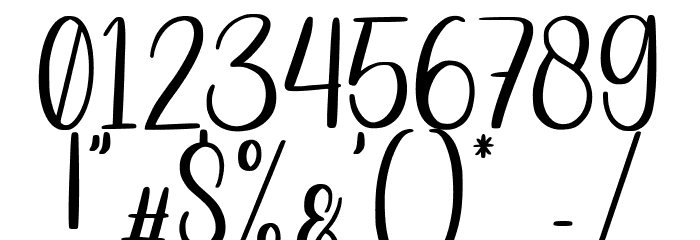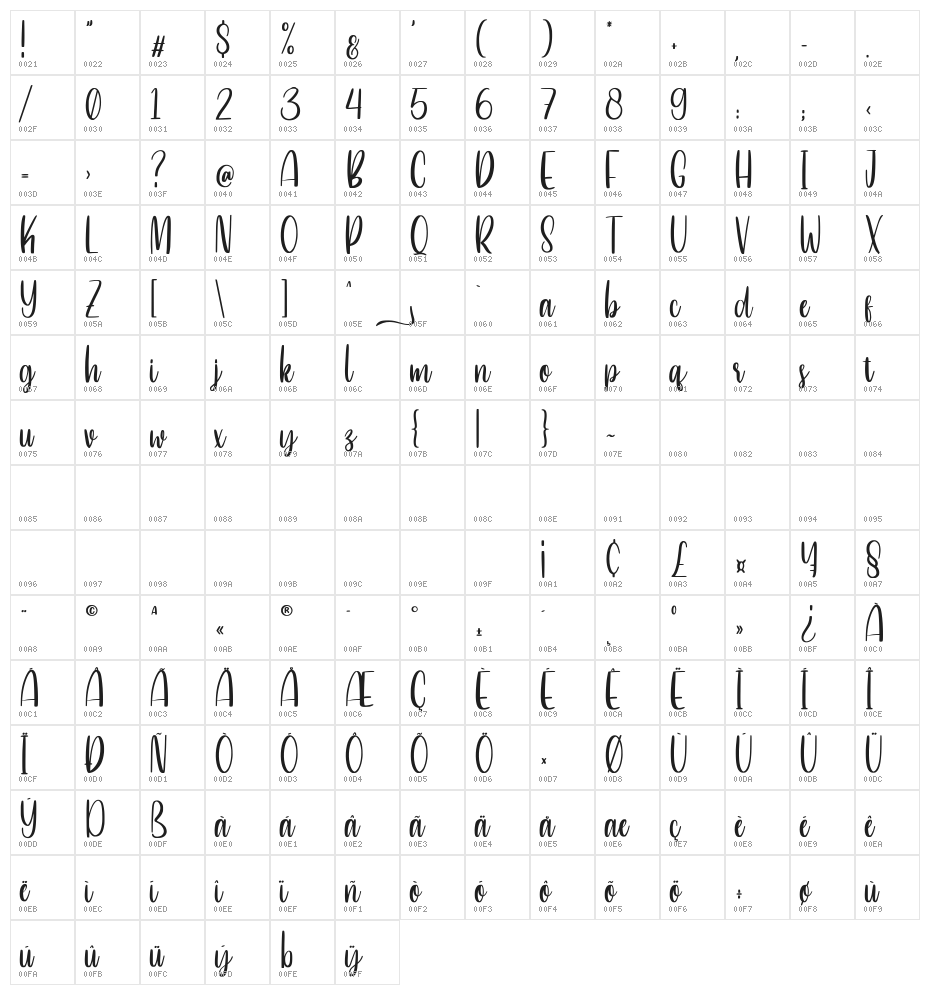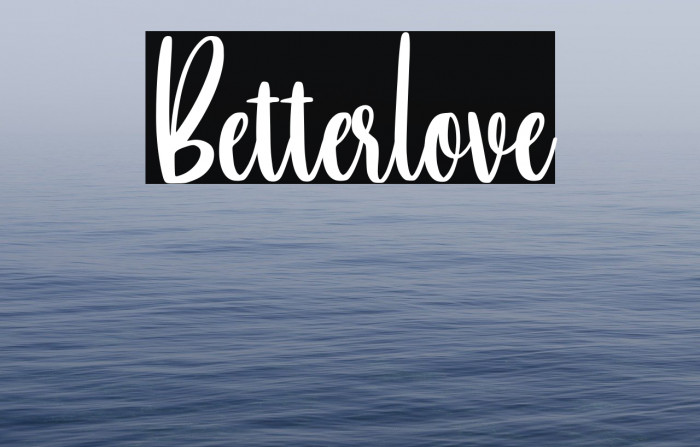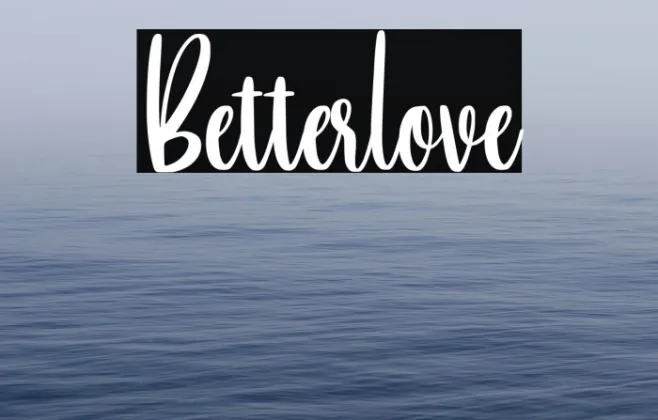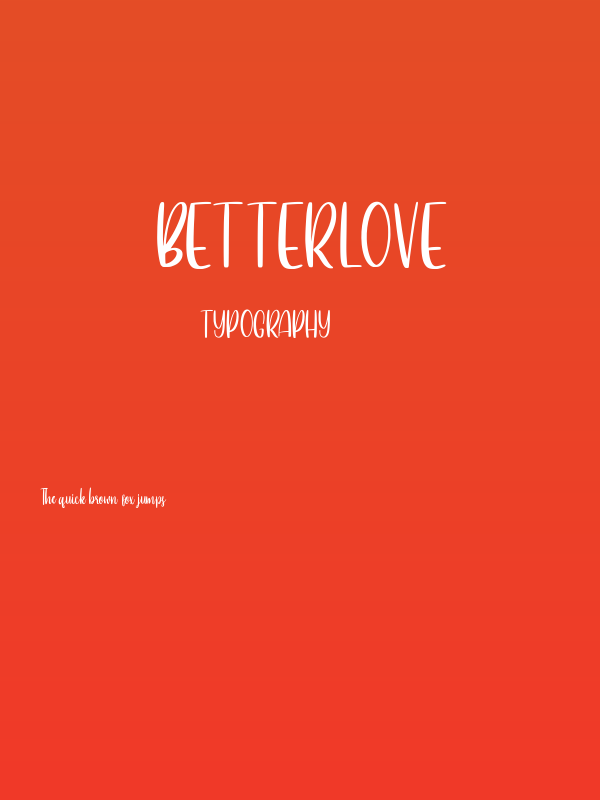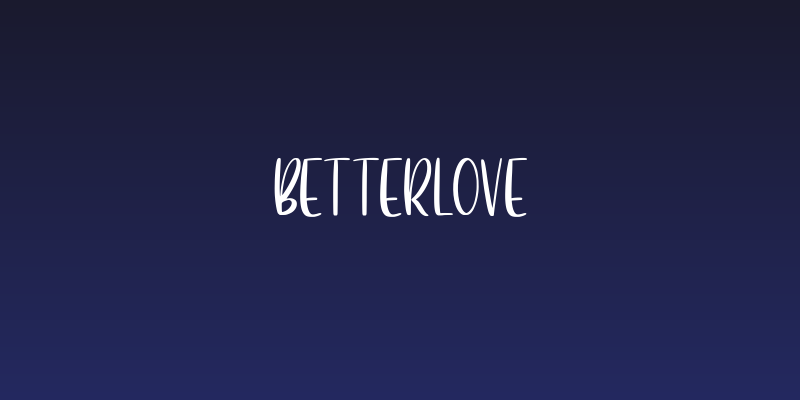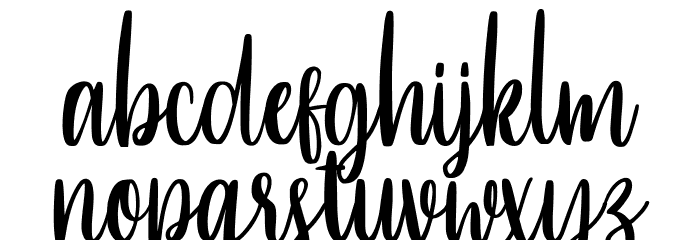
Betterlove Font
Betterlove Description
This font features a playful and energetic script style, characterized by its bold and flowing letterforms. The uppercase letters are tall and narrow, with a slight slant that adds a dynamic feel. The lowercase letters are more rounded and connected, creating a harmonious and fluid appearance. The numerals are consistent with the overall style, maintaining the same playful curves. Special characters are designed to complement the letters, ensuring a cohesive look across all text. The font's unique personality makes it stand out, perfect for projects that require a touch of whimsy and creativity.
| Proposed Projects | Ideal for greeting cards, invitations, branding, and social media graphics. |